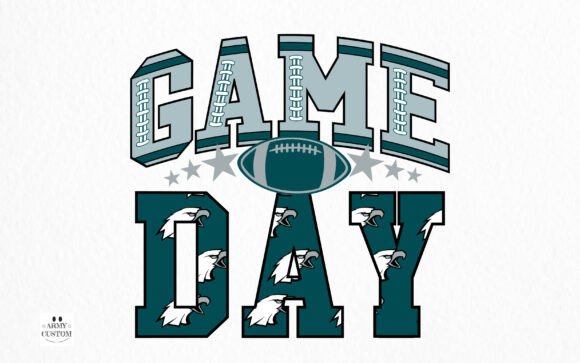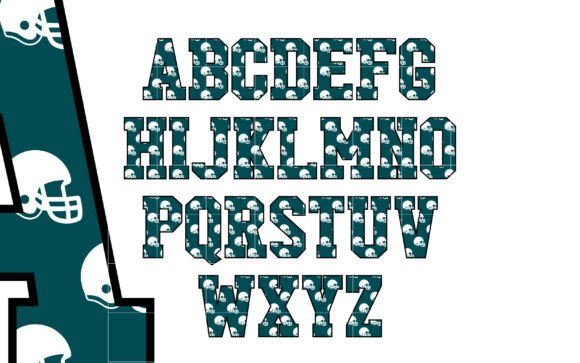
Introduction to American Football 6 Helmet Font
Immerse yourself in the exhilarating world of gridiron with the American Football color font family.
This innovative font, with its athletic underpinnings, captures the essence of American football in every letter Seamlessly combining design and sport, it exudes dynamism and competitive spirit, making it a quintessential choice for those seeking to communicate strength, agility, and unyielding spirit.